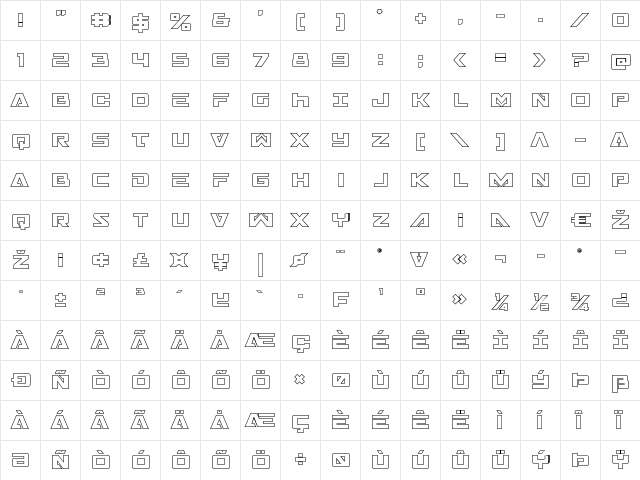
Trans-America Outline Regular
Design Context for Trans-America Outline Typeface
Trans-America Outline brings ornamental detail and strong personality to headlines and identities, where visual impact matters more than quiet functionality.
Font Pairing: Pair with a clean neutral sans-serif for body copy to let Trans-America Outline's character lead without overwhelming the composition.
Pro Tip: Use Trans-America Outline exclusively at display sizes — it was designed to be seen, not read at length. Let a neutral companion handle body copy.